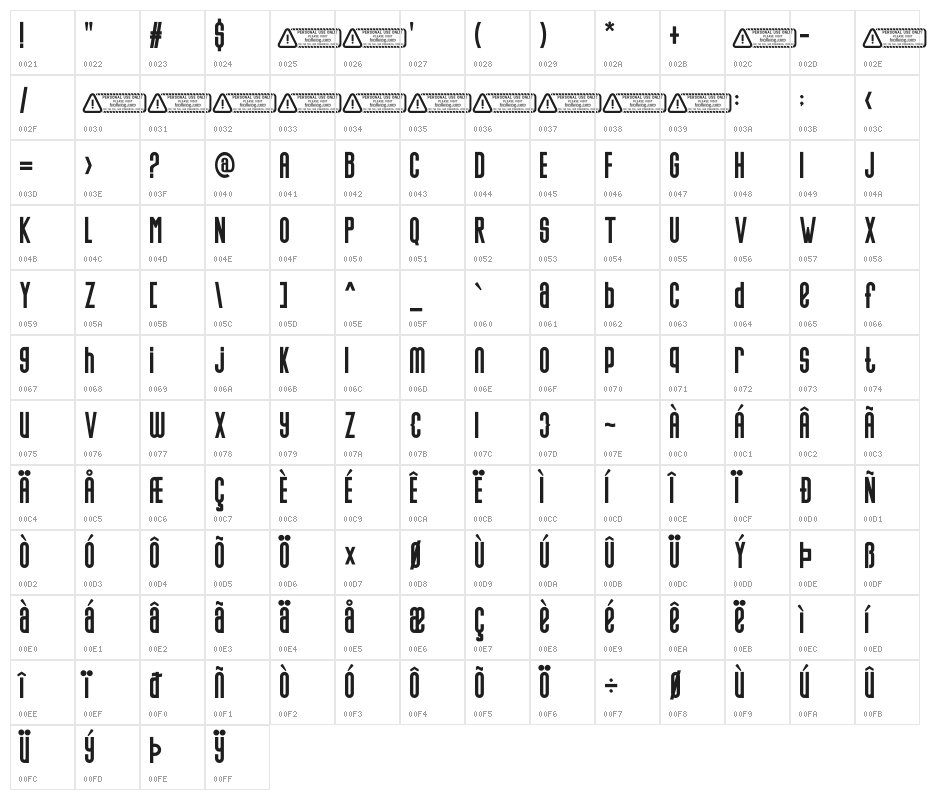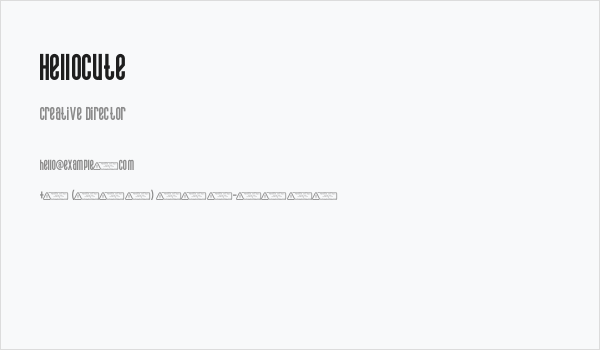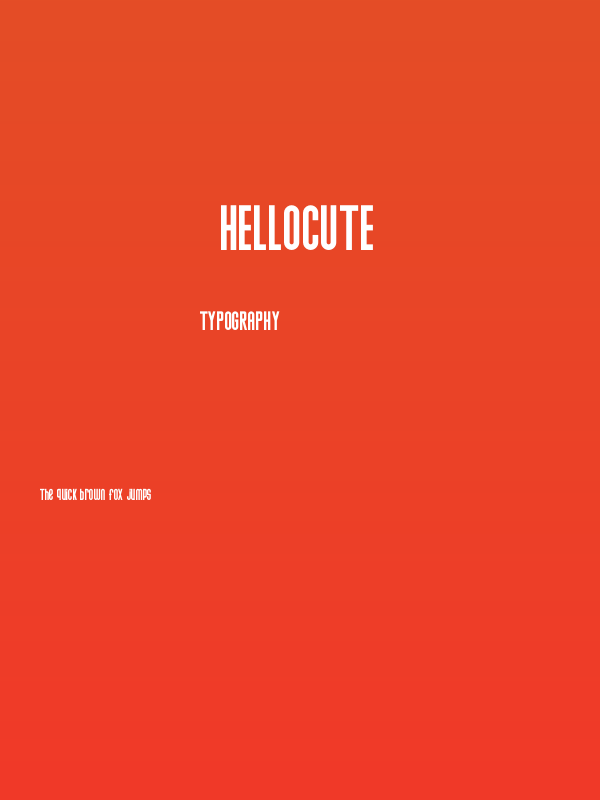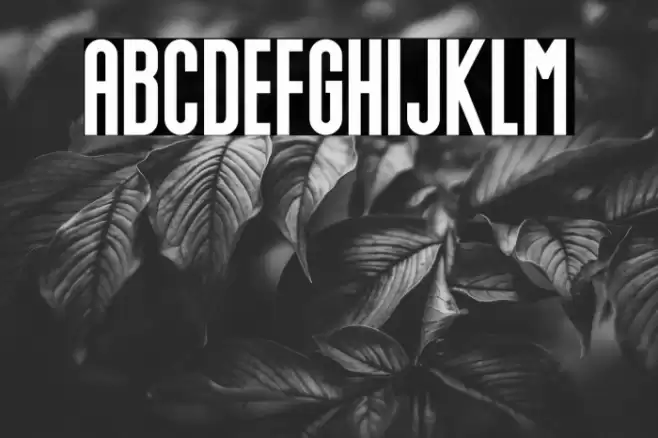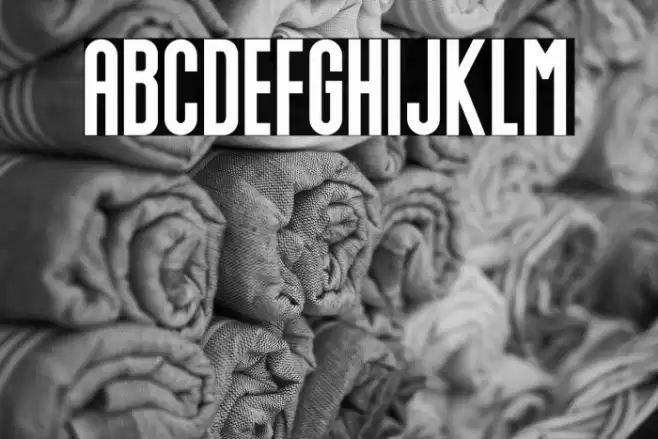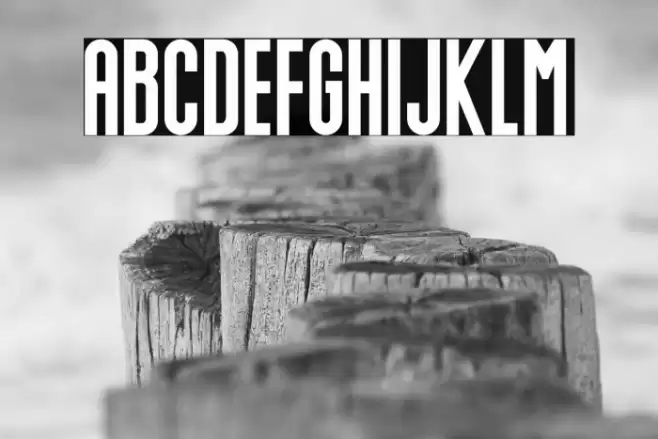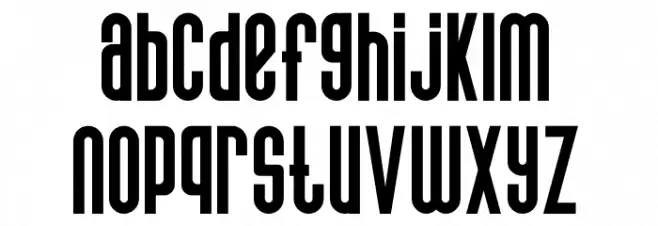
Hellocute Font
Hellocute Description
This font features a bold and condensed style with a modern flair. The uppercase letters are tall and narrow, creating a strong vertical emphasis. The lowercase letters maintain a similar condensed form, ensuring consistency across text. The numerals and special characters are designed to match the overall aesthetic, providing a cohesive look. The font's clean lines and uniform stroke width make it suitable for various design applications where a contemporary and impactful appearance is desired.
HELLOCUTE UPPERCASE
HELLOCUTE LOWERCASE
HELLOCUTE OTHER CHARS
| Proposed Projects | Ideal for headlines, posters, branding, and advertising where a strong visual impact is needed. |